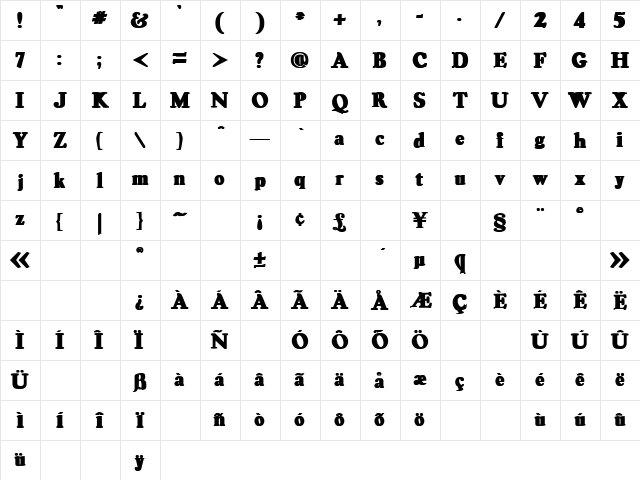
Assassination 3 Bold
Design Context for Assassination 3 Typeface
Assassination 3 is a composed and adaptable typeface that performs quietly and consistently across a wide range of design contexts. The heavy weight commands attention and anchors typographic hierarchies.